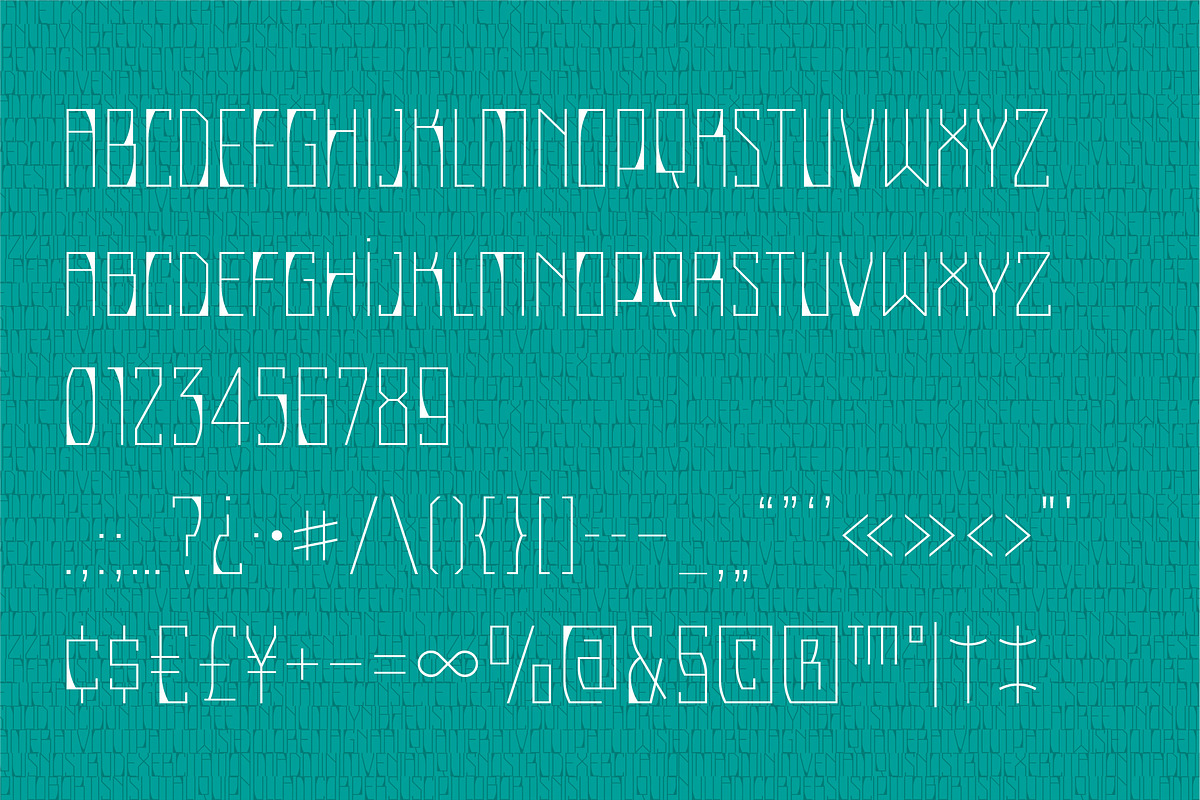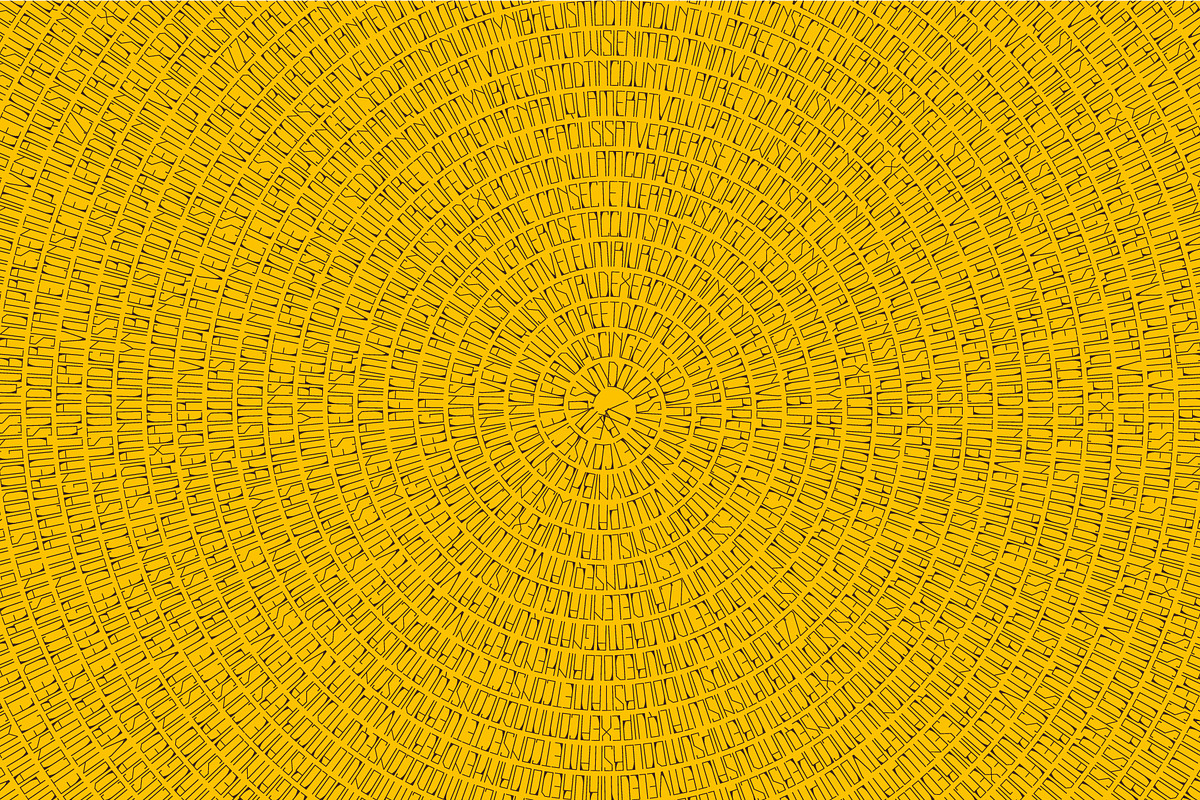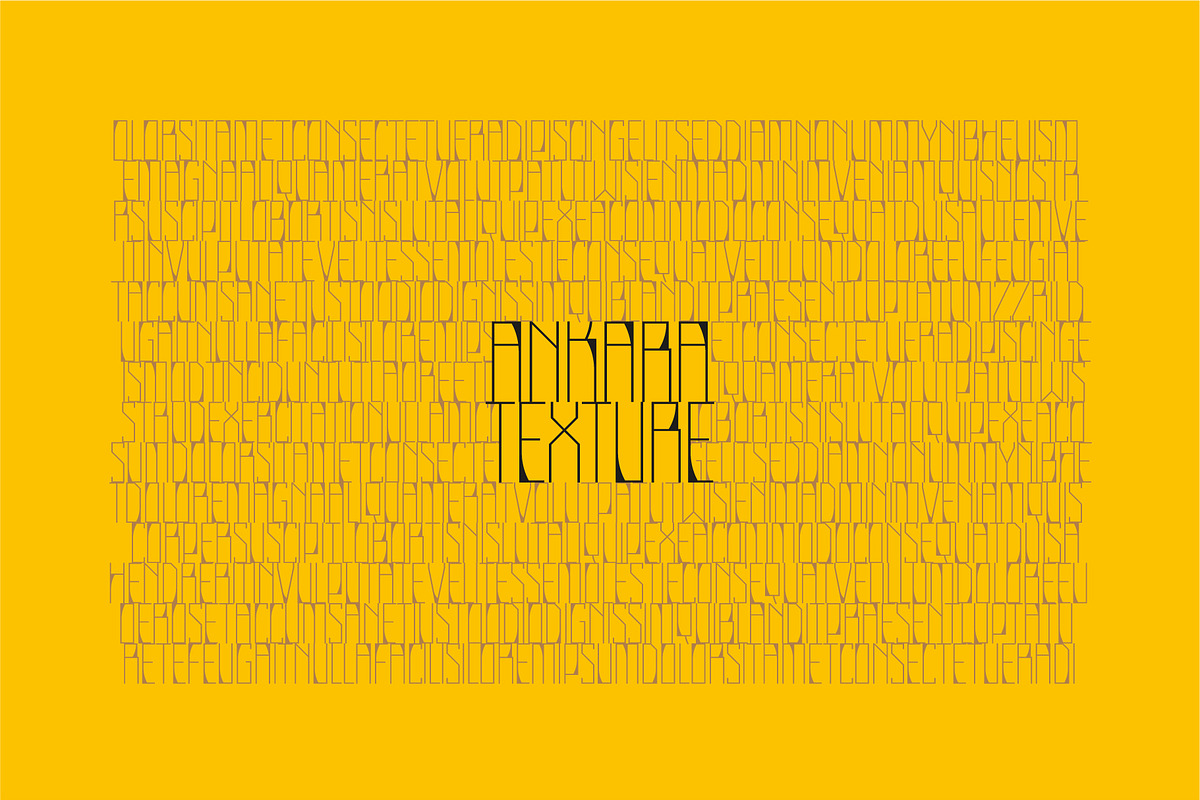
Ankara Texture
This font is designed to create typographic textures. It's based on Ankara Display but not in the same family because of some of its different forms.
Also, its angular forms give a digital impact.